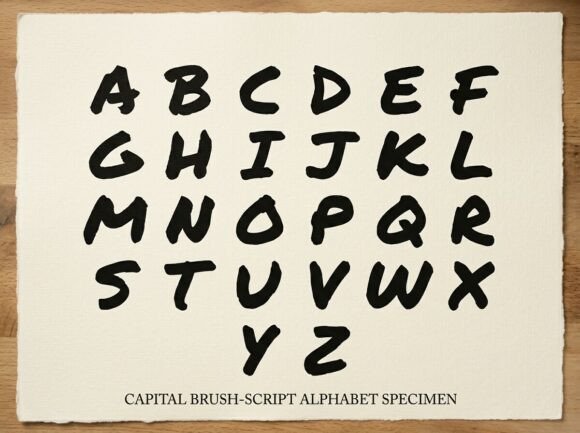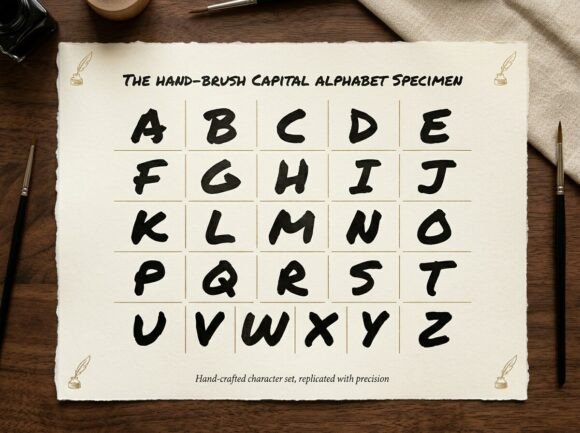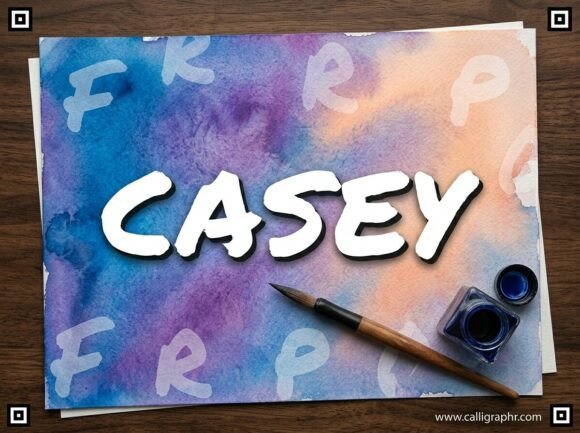
Introducing Casey Font: The Ultimate Decorative Display Font
Are you tired of using the same old fonts for your creative projects? Look no further than Casey Font, a stunning decorative display font designed to be the center of attention. With its unique artistic elements and strong visual personality, this font is perfect for creators who want to break away from the ordinary and make a statement.
What Makes Casey Font Special?
Casey Font is a versatile font that is perfect for bold headlines, artistic logos, and creative packaging. Its professional and polished finish ensures that your designs look sleek and sophisticated, while its unique artistic elements add a touch of personality and flair. Whether you’re a designer, craftsperson, or DIY enthusiast, Casey Font is the perfect choice for anyone looking to add some excitement to their creative projects.
Important Note: All-Caps Display Typeface
⚠️ IMPORTANT NOTE BEFORE PURCHASE: Casey Font is an ALL-CAPS (Uppercase Only) display typeface. This means that it does not include lowercase letters. It is specifically designed for high-impact headlines, logos, and decorative initials where every letter is a work of art. This unique design feature allows for maximum visual impact and makes Casey Font perfect for attention-grabbing applications.
Use Cases for Casey Font
So, what can you use Casey Font for? The possibilities are endless! Here are a few ideas to get you started:
- Headlines and Titles: Use Casey Font to create bold, eye-catching headlines and titles for your blog posts, articles, and social media updates.
- Logos and Branding: Create a unique and memorable logo for your business or brand with Casey Font.
- Packaging and Labeling: Add a touch of personality to your product packaging and labels with Casey Font.
- Invitations and Stationery: Use Casey Font to create beautiful and unique invitations, greeting cards, and stationery.
Tips for Using Casey Font
Here are a few tips for getting the most out of Casey Font:
- Use it sparingly: Casey Font is a bold and attention-grabbing font, so use it sparingly to avoid overwhelming your design.
- Pair it with a simple font: Pair Casey Font with a simple font, such as Arial or Helvetica, to create visual contrast and make your design more readable.
- Experiment with colors and textures: Casey Font looks great in a variety of colors and textures, so don’t be afraid to experiment and find the perfect combination for your design.
Casey Font is a stunning decorative display font that is perfect for creators who want to break away from the ordinary and make a statement. With its unique artistic elements, strong visual personality, and versatility, Casey Font is the perfect choice for bold headlines, artistic logos, and creative packaging. So why wait? Purchase Casey Font today and take your creative projects to the next level!